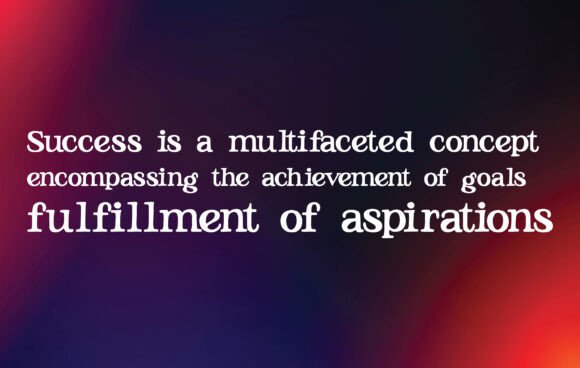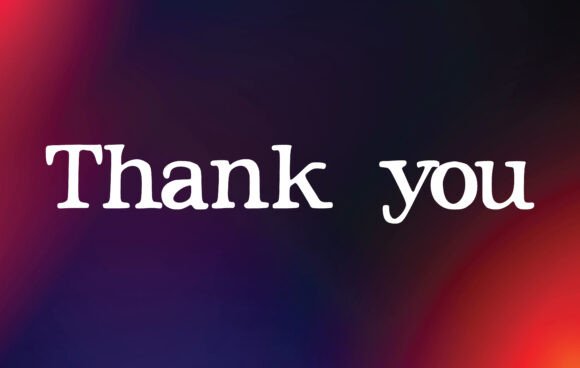
Cynthia Font: Elevate Your Creative Projects with Elegance and Sophistication
Are you a designer, crafty enthusiast, or entrepreneur looking for a font that can take your creative ideas to new heights? Look no further than Cynthia Font, a lovely and beautiful typeface that is sure to impress. With its elegant and sophisticated design, Cynthia Font is the perfect choice for creating eye-catching logos, branding, and quotes that will leave a lasting impression.
The Beauty of Cynthia Font
Cynthia Font is a stunning example of typographic excellence, with its flowing lines, curves, and subtle nuances that give it a unique and distinctive character. The font’s design is both modern and timeless, making it suitable for a wide range of creative projects, from contemporary branding and advertising to traditional crafts and DIY projects.
Key Features of Cynthia Font
• Elegant and Sophisticated Design: Cynthia Font boasts a beautiful, high-end design that exudes elegance and sophistication, making it perfect for luxury brands, high-end products, and creative projects that require a touch of refinement.
• Versatile and Adaptable: This font is incredibly versatile and can be used for a wide range of creative projects, including logos, branding, quotes, posters, and more.
• Easy to Read and Understand: Despite its elegant design, Cynthia Font is remarkably easy to read and understand, making it suitable for both digital and print applications.
• Scalable and Flexible: This font is highly scalable and can be used at various sizes, from small captions to large headlines, without losing its integrity or beauty.
Why Choose Cynthia Font?
So, why should you choose Cynthia Font for your creative projects? Here are just a few compelling reasons:
• Stand Out from the Crowd: With Cynthia Font, you can create unique and eye-catching designs that will help you stand out from the competition and leave a lasting impression on your audience.
• Enhance Your Brand’s Image: This font is perfect for creating professional and cohesive brand identities that exude elegance, sophistication, and refinement.
• Boost Your Creativity: Cynthia Font is designed to inspire creativity and help you bring your ideas to life in a beautiful and visually appealing way.
Tips for Using Cynthia Font Effectively
To get the most out of Cynthia Font, here are some tips for using it effectively in your creative projects:
• Pair it with Other Fonts: Experiment with pairing Cynthia Font with other fonts to create visually appealing and harmonious typography.
• Use it for Headlines and Titles: Take advantage of Cynthia Font’s elegant design by using it for headlines, titles, and other prominent text elements.
• Experiment with Colors and Textures: Don’t be afraid to experiment with different colors and textures to add depth and interest to your designs.
In conclusion, Cynthia Font is a beautiful and elegant typeface that has the potential to elevate your creative ideas to new heights. With its sophisticated design, versatility, and ease of use, this font is perfect for designers, crafters, and entrepreneurs looking to create stunning logos, branding, and quotes. Whether you’re working on a digital project or a traditional craft, Cynthia Font is sure to inspire your creativity and help you achieve your goals.